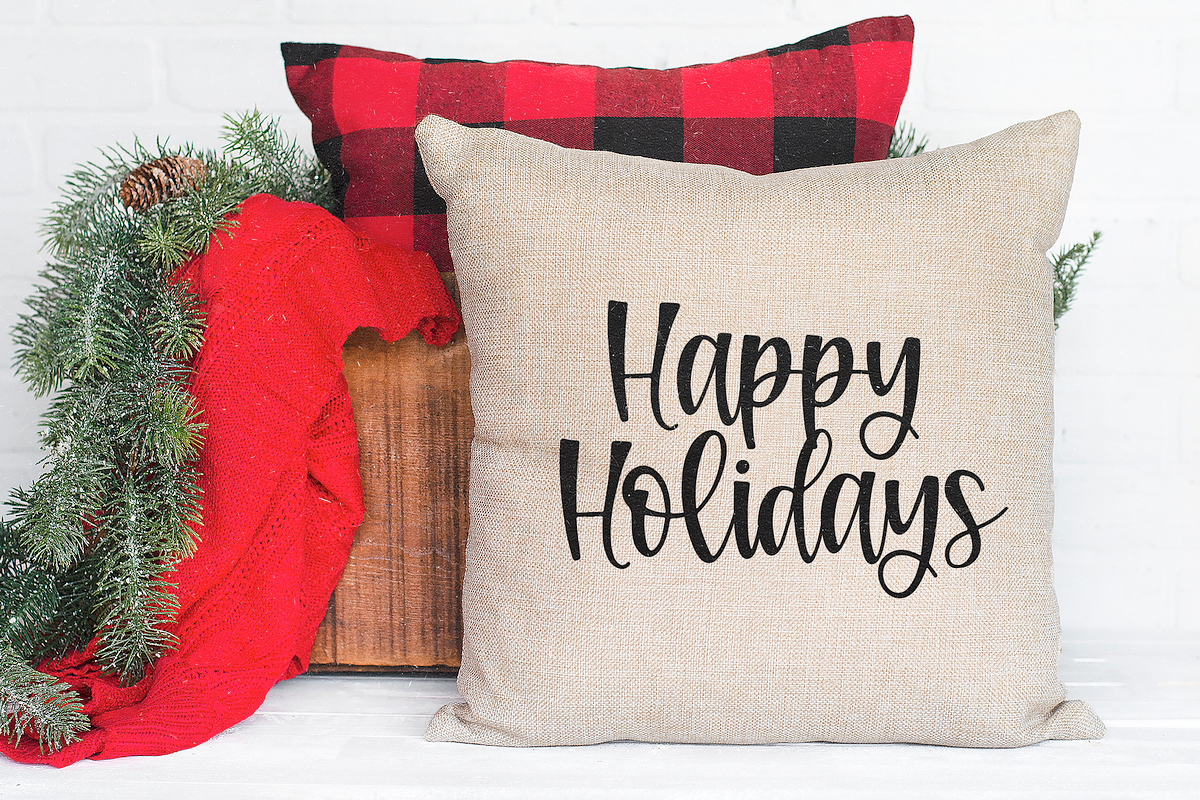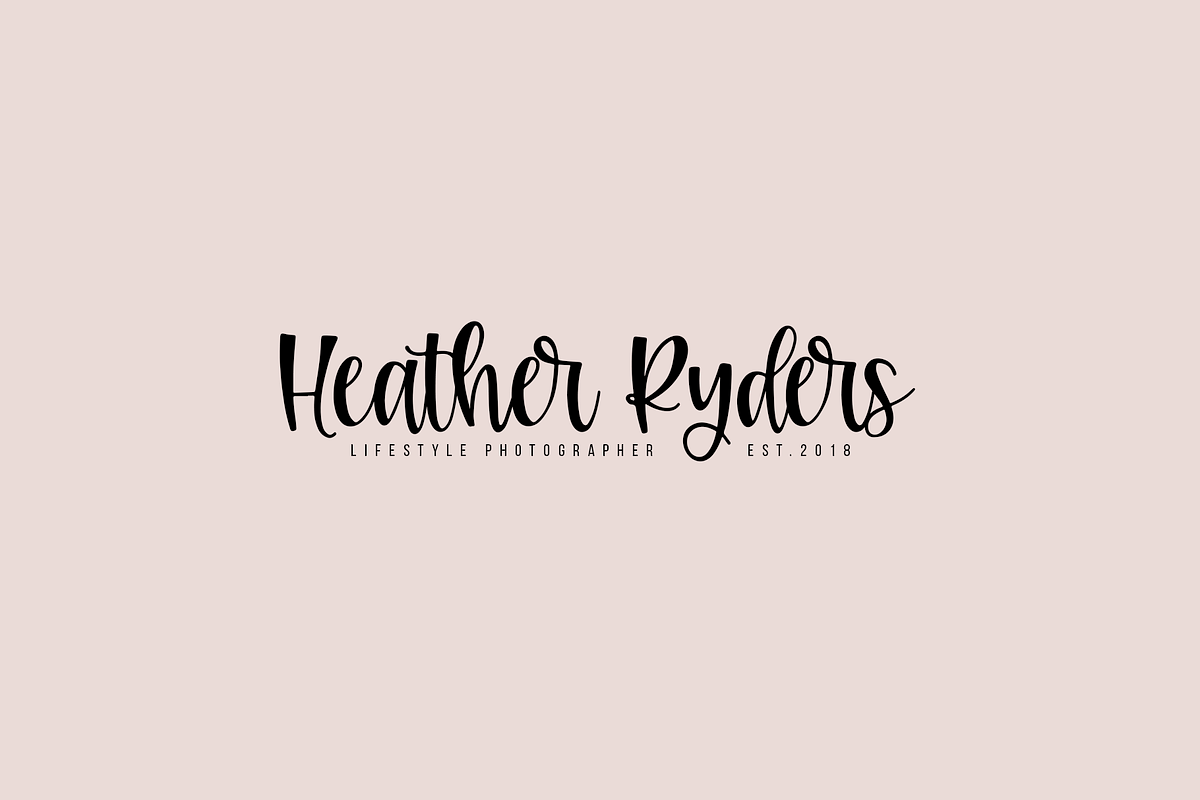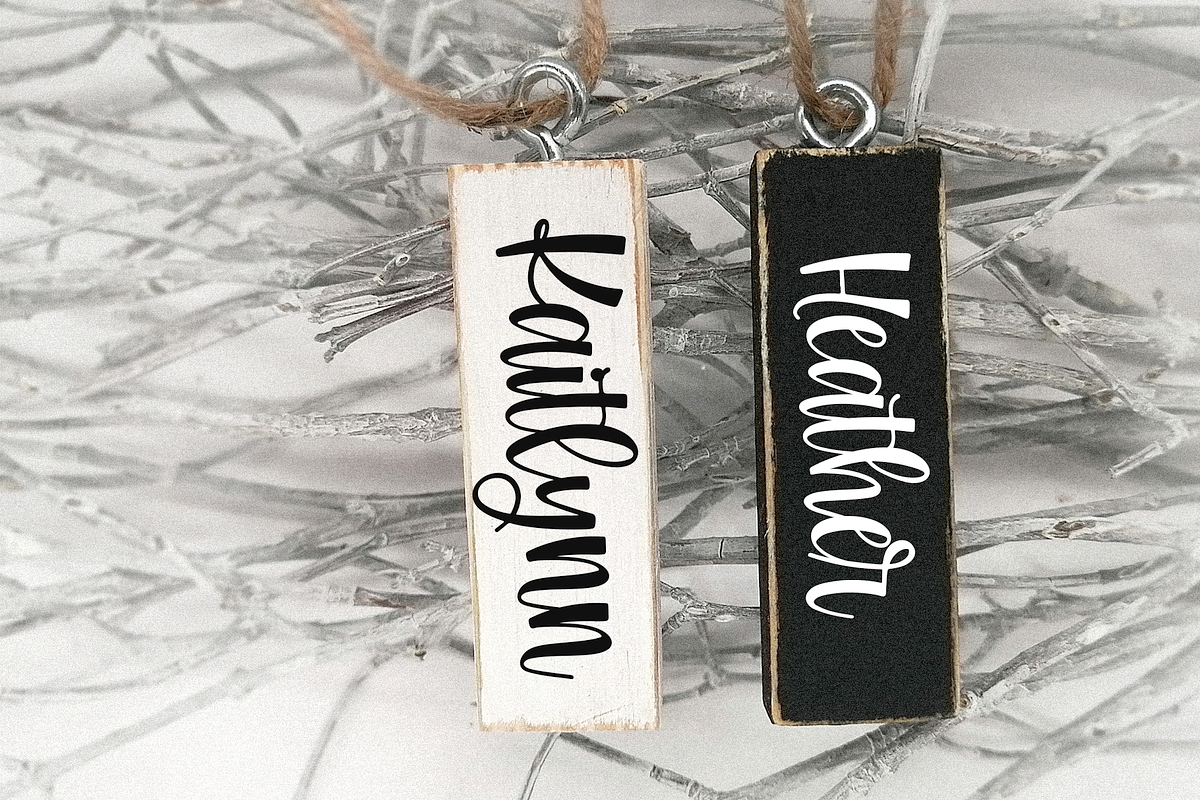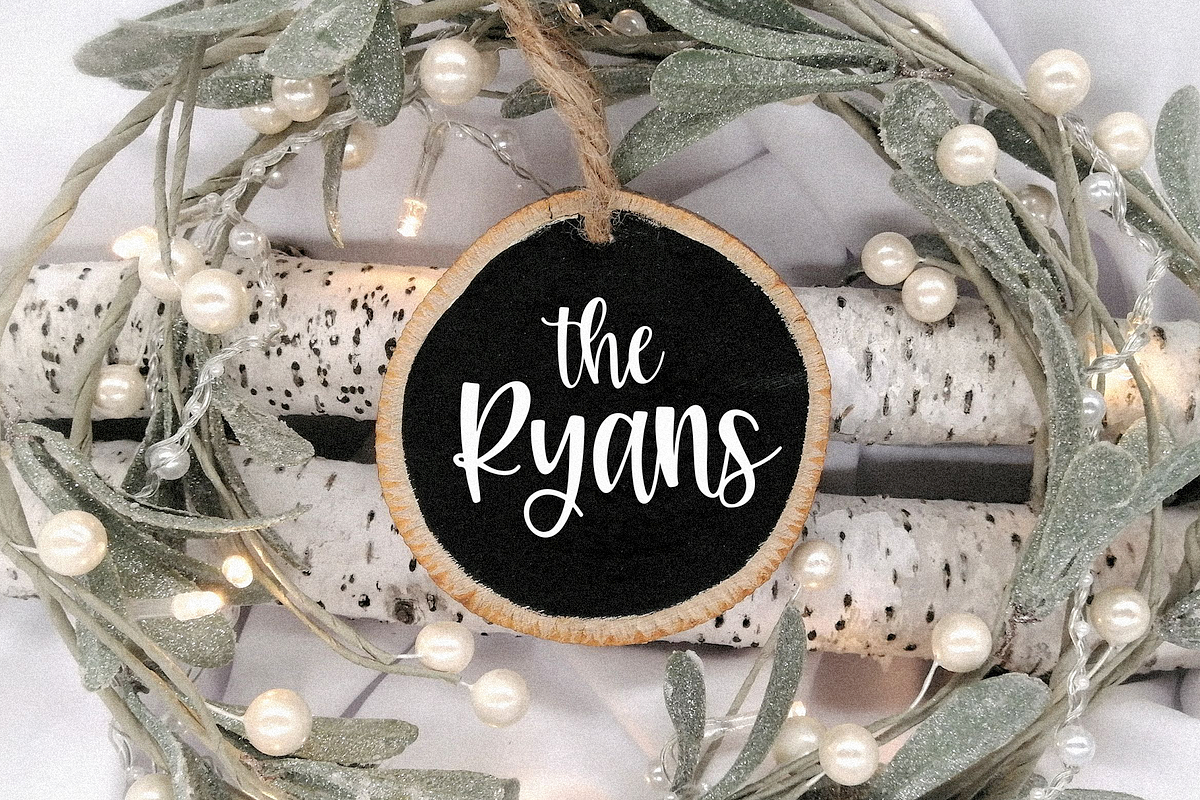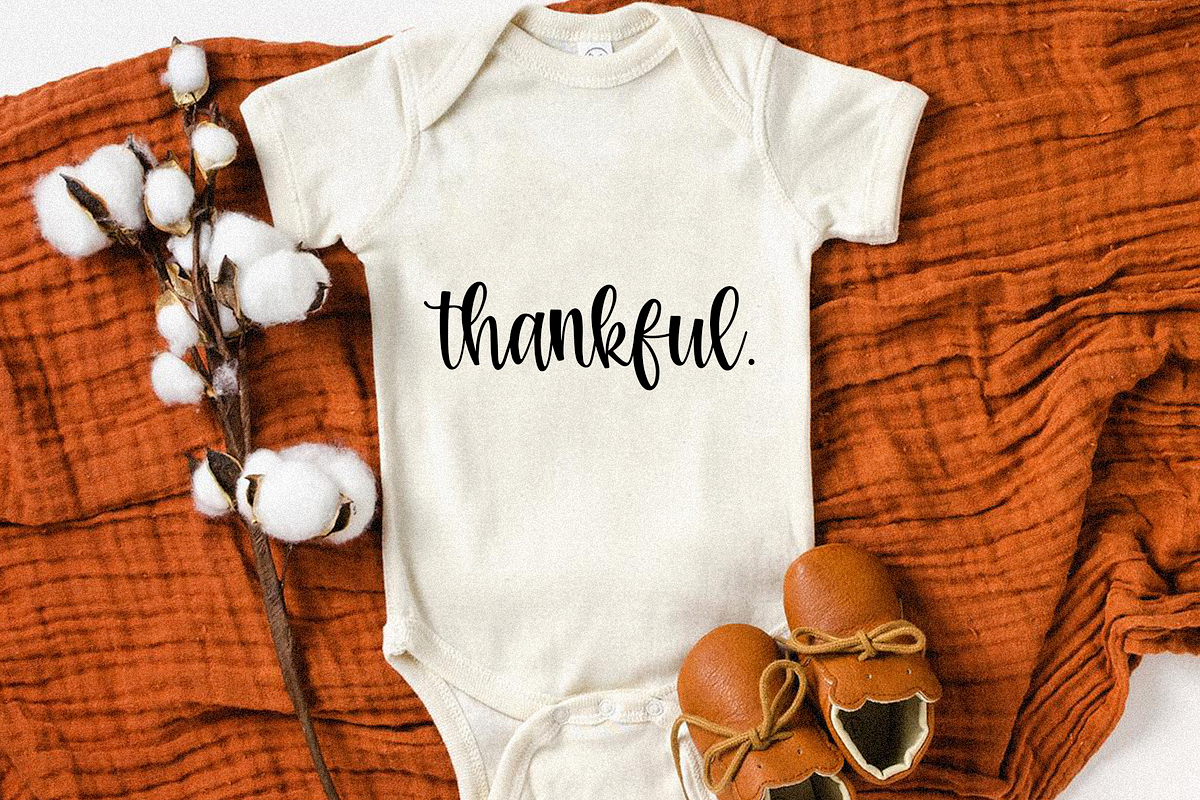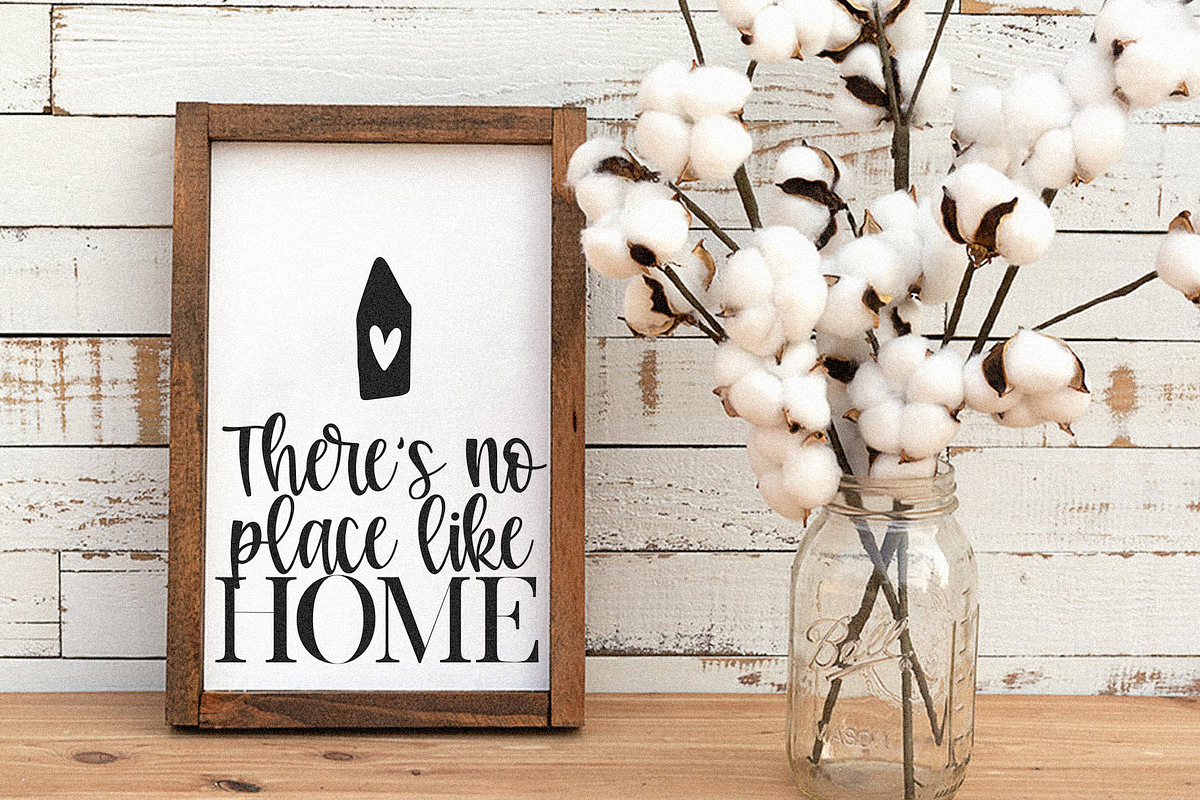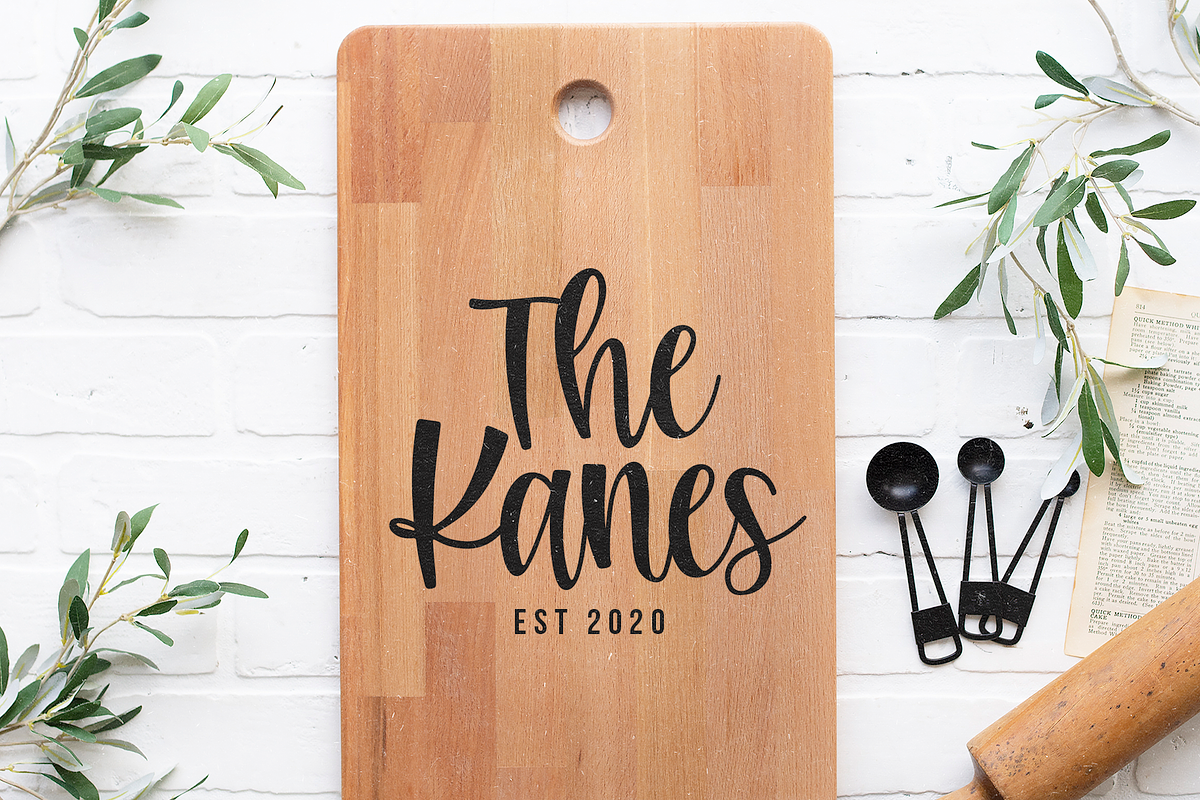
Heartwarming | A Bouncy Script Font
Heartwarming is a bouncy handwritten script font!
This font is perfect for quotes, shirt designs, websites, branding, home decor, social media, children's designs, blogs, logos, invitations and more!
Heartwarming | A Bouncy Script Font by KA Designs fits naturally into Branding, posters, packaging, typography.